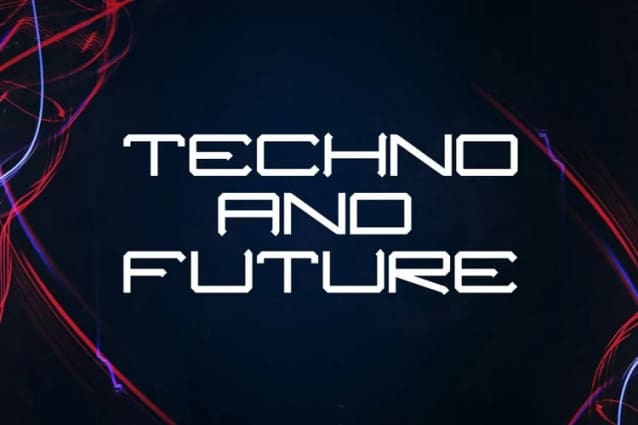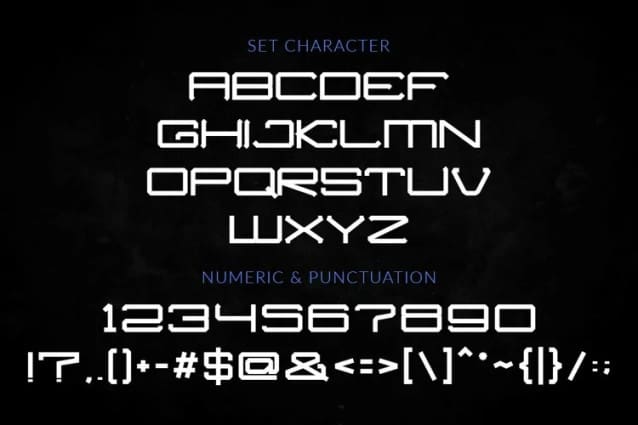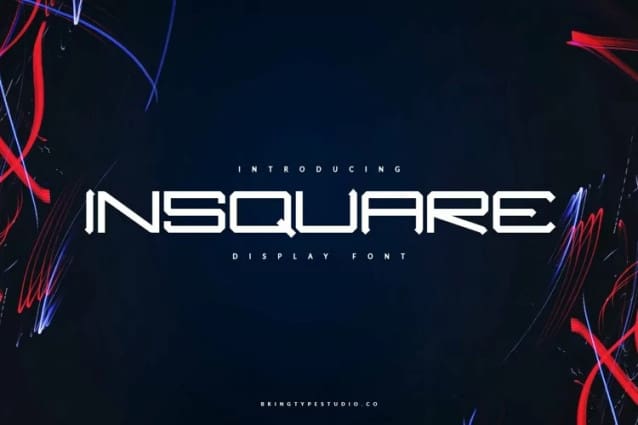
Insquare Futuristic Font
Insquare Futuristic Font, created with a square line and a precise curve between one and the other, this font is perfect for branding, headlines, signatures, logos, blogs, wedding invitations wedding, T-shirts, letterhead, merchandise, signs, branding, news, posters, badges, etc.